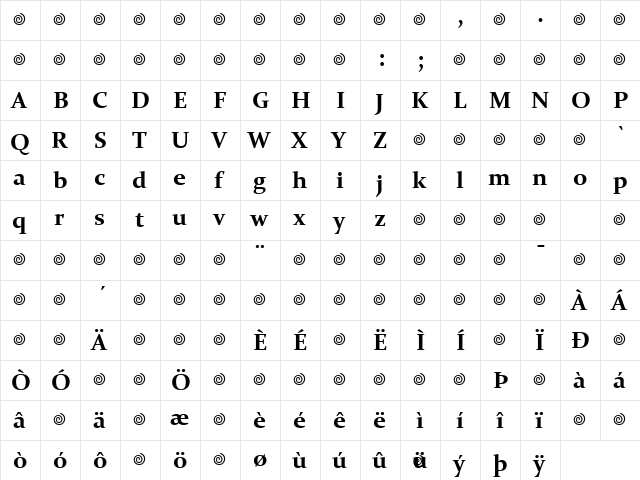
Constantia Bold
| Foundry | Microsoft Corporation |
| Designer | John Hudson |
Design Context for Constantia Typeface
Constantia takes a measured approach to typography — its balanced proportions and neutral character make it a reliable workhorse for both digital and print work. Its bold stroke weight gives it real presence on the page.